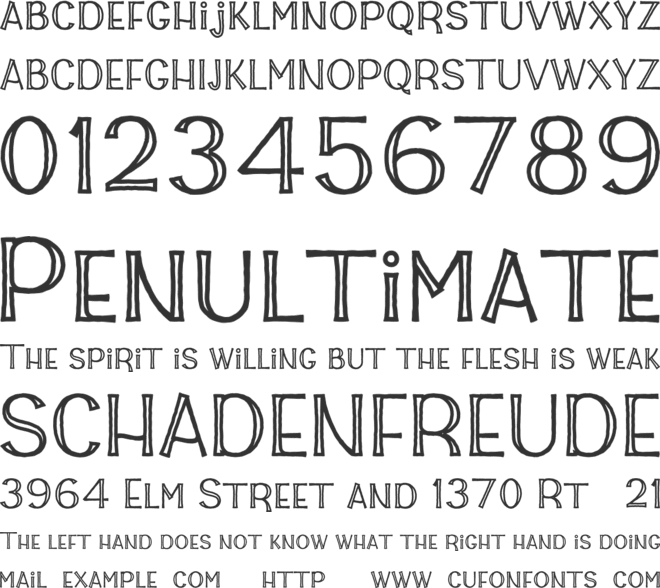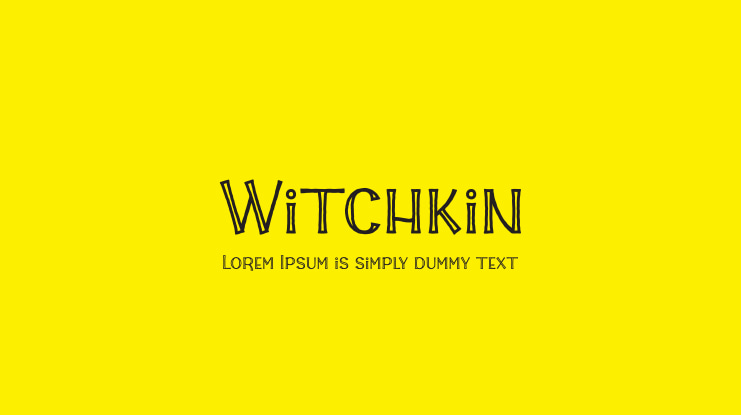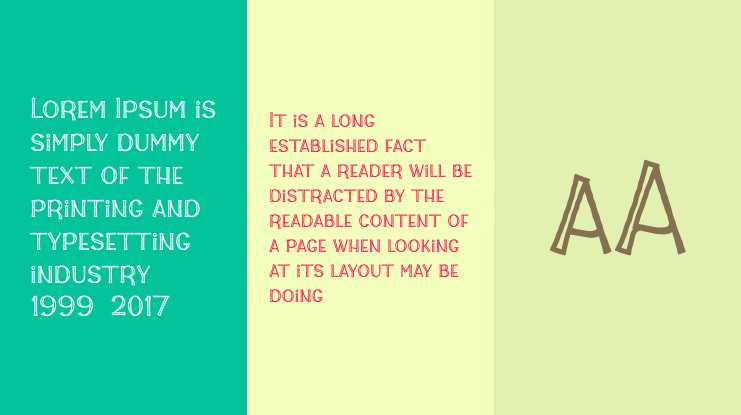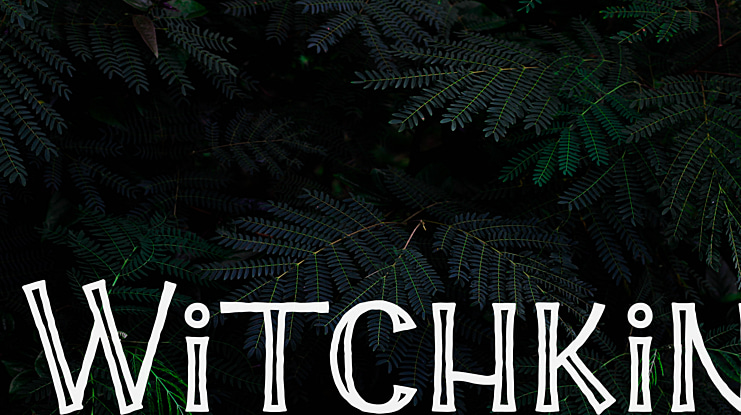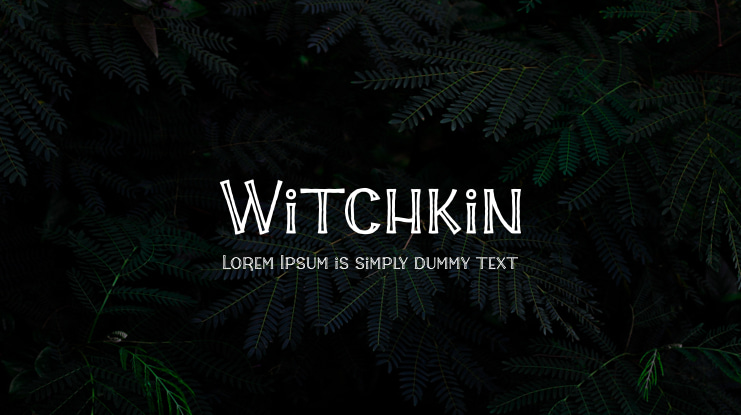
Witchkin Font
Andreas Kosikin
Looking to elevate your horror projects with an exceptional font? Don’t search anymore as the perfect font to meet your spooky needs is Witchkin – and it’s free of charge to download! Boasting a distinctive atmosphere and top-notch design, you can create a project that will give your audience shivers down their spines. Take Witchkin for a spin and bring your nightmares to reality!
- 6 Styles
- Basic Latin A-Z and a-z
- Numerals & Punctuation
- Stylistic Ligatures and Alternate Glyphs
- Multilingual Support for ä ö ü Ä Ö Ü …